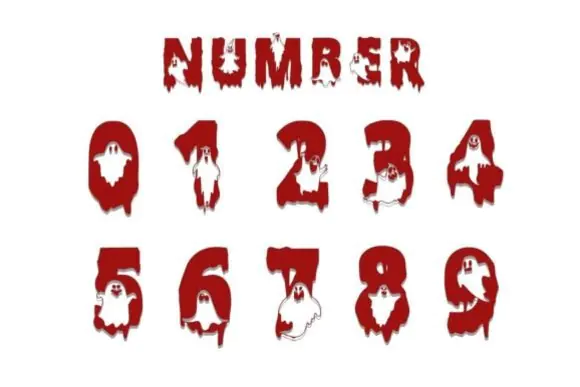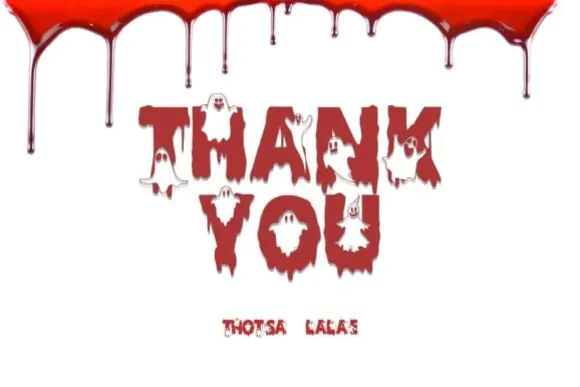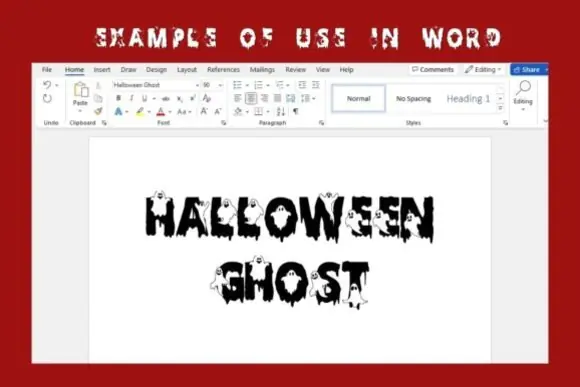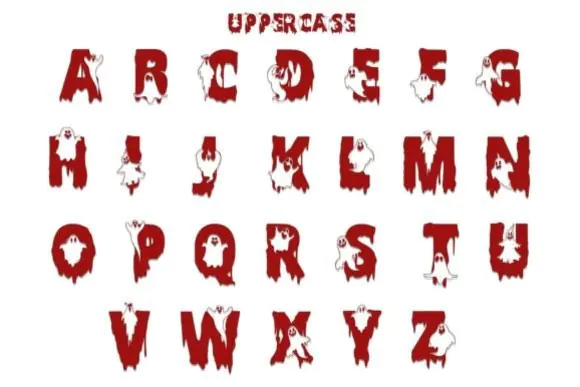
Halloween Ghost Font | Spooky Fun Decorative Drippy Font with Cute Ghosts for Halloween T-Shirts, Invitations, Posters, Stickers & Crafts
Create spooky, playful, and memorable Halloween designs with Halloween Ghost Font, a fun decorative font featuring drippy characters decorated with cute little ghosts. This font is perfect for adding a friendly haunted look to your seasonal projects while keeping the design fun, festive, and eye-catching.
Halloween Ghost Font works beautifully for Halloween party invitations, greeting cards, t-shirt designs, sweatshirts, mugs, stickers, posters, banners, printable wall art, classroom decorations, social media graphics, sublimation projects, labels, packaging, and craft designs.
Its dripping letter style adds a spooky Halloween feeling, while the cute ghost details make it suitable for both scary and family-friendly Halloween designs. Whether you are creating party graphics, kids’ Halloween products, digital downloads, or seasonal merchandise, this font helps your text stand out with a fun ghostly personality.
• Halloween t-shirt designs
• Party invitations and greeting cards
• Cute ghost-themed posters
• Mug and sticker designs
• Sublimation projects
• Printable wall art
• Classroom Halloween decorations
• Kids’ Halloween crafts
• Banners and signs
• Product labels and packaging
• Cricut and Silhouette projects
• Seasonal branding
• Spooky and fun decorative style
• Drippy characters with cute ghost details
• Great for Halloween-themed designs
• Suitable for family-friendly spooky projects
• Perfect for shirts, cards, posters, stickers, and crafts
• Adds a playful haunted touch to your typography
Halloween Ghost Font is a great choice for designers, crafters, teachers, small business owners, and digital sellers who want to create fun ghost-themed Halloween products with a spooky yet cute personality.